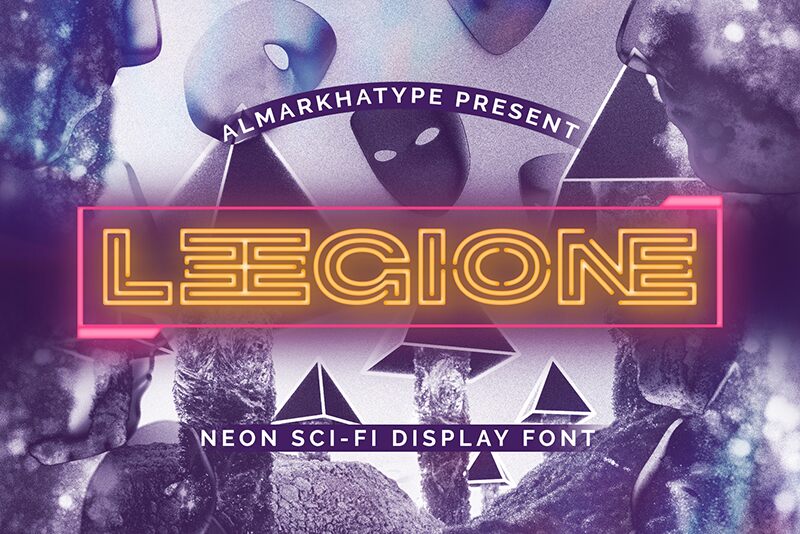
Leegione
Leegione, designed by Almarkhatype, is a striking display font that captures the essence of futurism with its bold and expanded design. Its unique character combines a sense of modernity with round contours, creating an eye-catching aesthetic that stands out in any context. The robust presence of Leegione ensures legibility while exuding an energetic flair, making it ideal for impactful signage and promotional materials.
The font’s vivid lines and dynamic shapes are perfect for projects that aim to convey innovation and creativity. Whether used in branding campaigns, tech-related visuals, or futuristic artwork, Leegione brings a captivating essence that draws attention and elevates the overall design narrative.